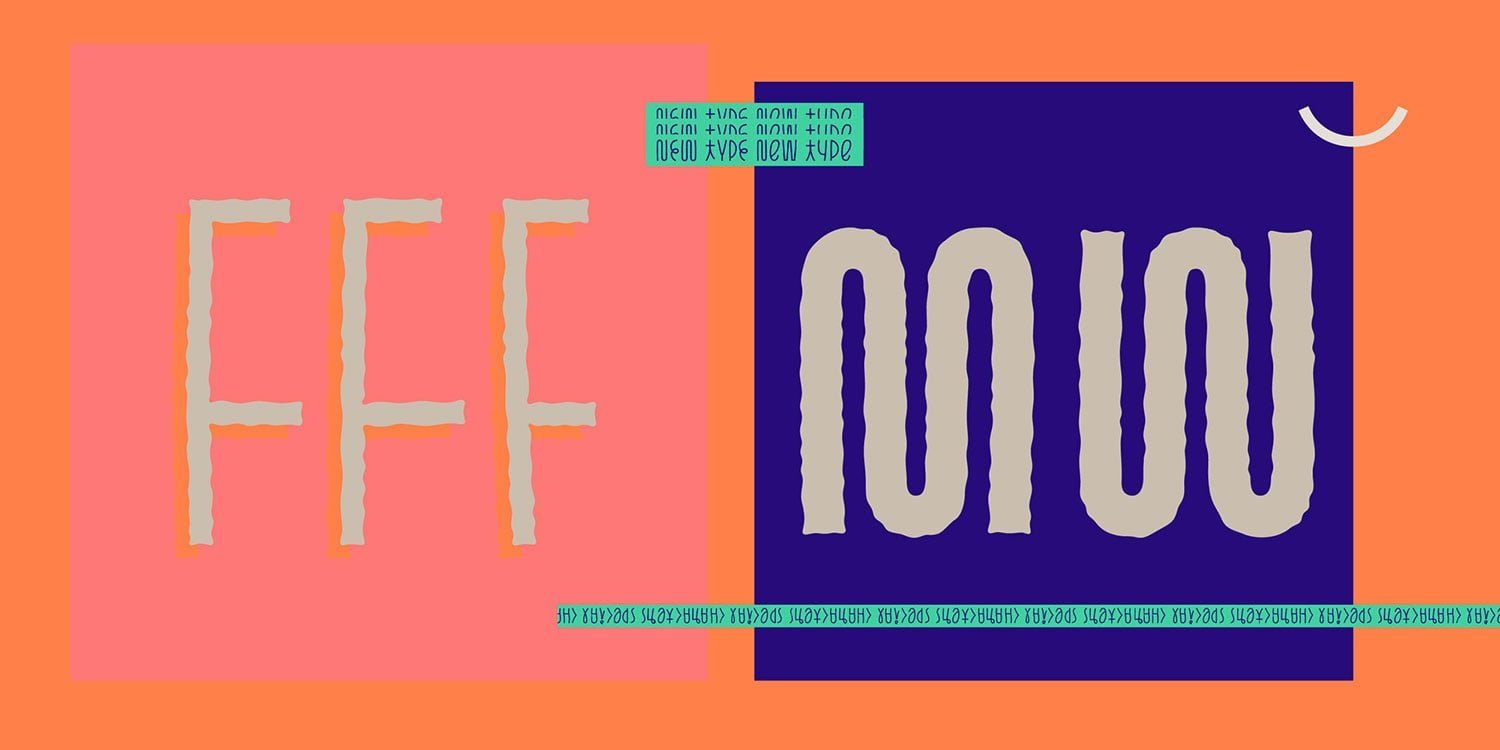
New Pasto Font | Mindsparkle Mag
Pasto is a fun and charming display type family of two styles and four weights each designed by Julia Martinez Diana from Antipixel Type Studio. The first...